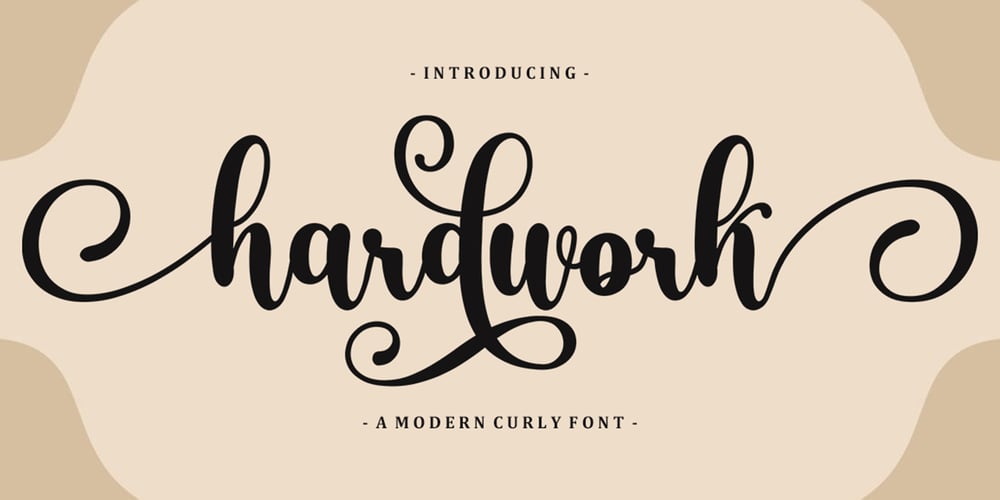
Hardwork Font Family was designed by Mu Fazzal and published by Bosstypestudio. Hardwork contains 1 styles and family package options. Hardwork is a new calligraphy font which is fresh, funny, interesting and with a cute heart that can be connected. It is suitable for greeting cards, branding materials, business cards, quotes, posters, and more!